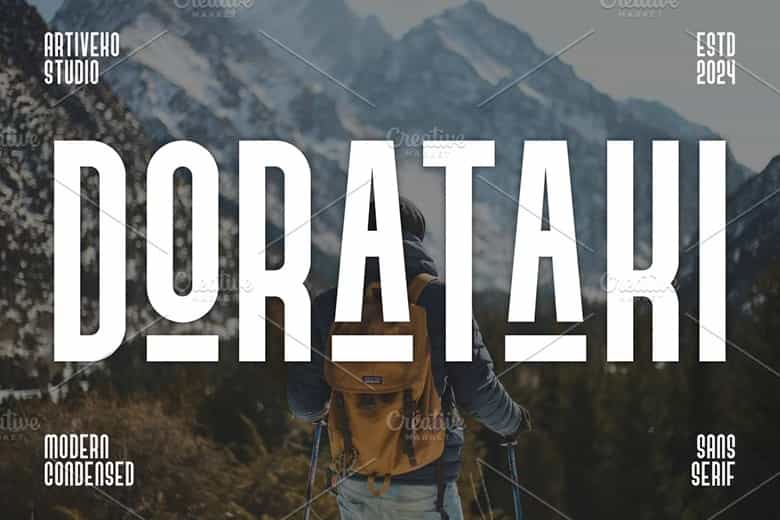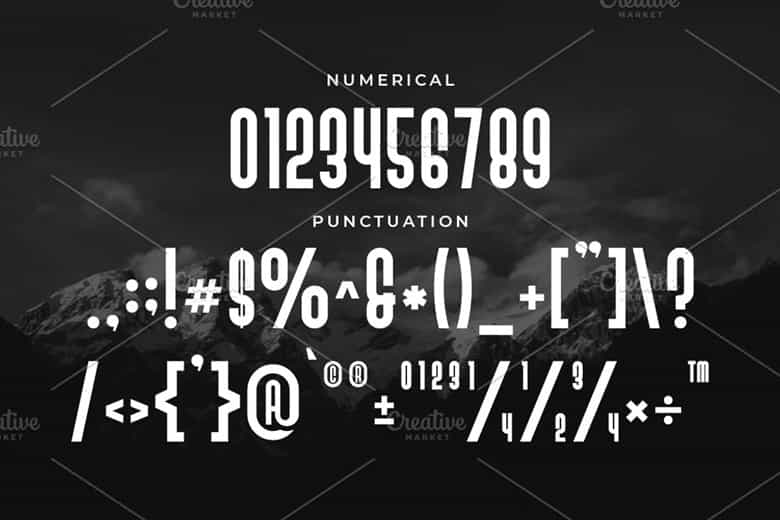
Dorataki is a compressed exclusively sans serif font by Iwan Alwan, distinguished by its individualistic and innovative design of lettering opposed to the regular typography. Thanks to its small size and clean, contemporary aesthetic, Dorataki is ideal for logos, advertisements, and newsletter layouts in which visuals need to be as big as possible. Providing language support, discretionary and discretionary ligatures, and stylistic sets, and so on.